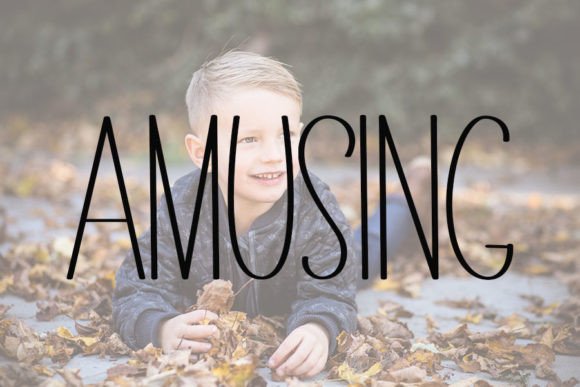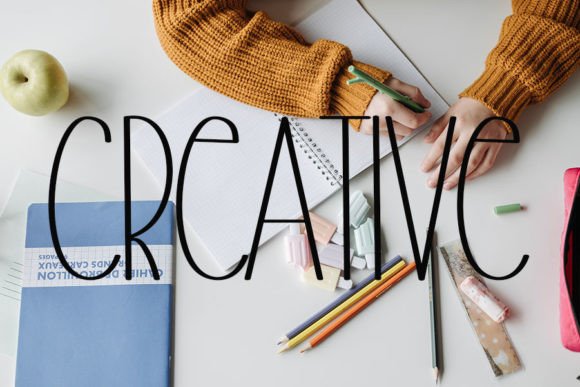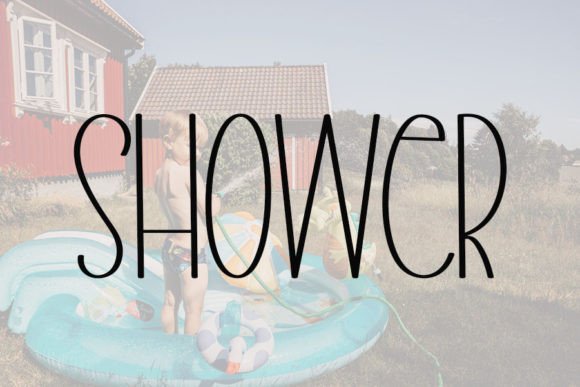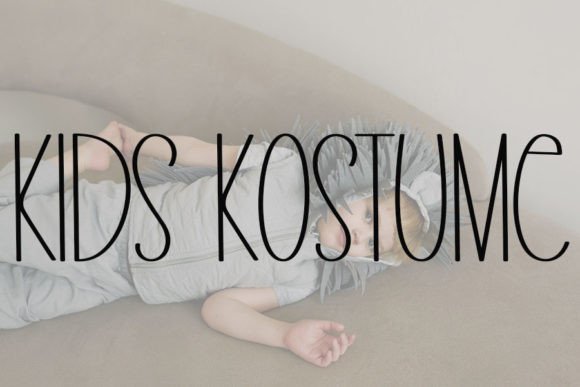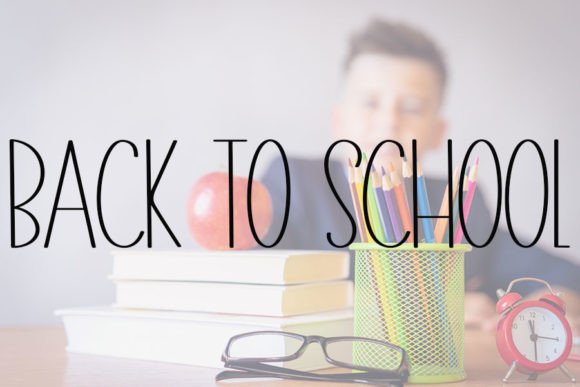
Introducing Children Font: The Perfect Elegant Touch for Your Designs
Are you looking for a font that adds a touch of elegance and sophistication to your designs? Look no further than Children Font, a beautiful handwritten font that is sure to capture your heart. With its incredibly distinct and timeless style, Children Font is perfect for designers and crafters who want to create spectacular designs that stand out from the crowd.
What is Children Font?
Children Font is a neat and beautiful handwritten font that is described by an elegant touch. Its unique and distinctive style makes it perfect for a wide range of projects, from wedding invitations and greeting cards to branding and advertising materials. Whether you’re a professional designer or a crafter looking for a special font to add to your creations, Children Font is an excellent choice.
Key Features of Children Font
So what makes Children Font so special? Here are just a few of its key features:
- Elegant and sophisticated: Children Font has an undeniable air of elegance and sophistication that makes it perfect for designs that require a touch of refinement.
- Unique and distinctive: With its incredibly distinct style, Children Font is sure to set your designs apart from the crowd.
- Handwritten: Children Font is a handwritten font, which gives it a personal and intimate feel that’s perfect for a wide range of projects.
- Timeless: Unlike some fonts that can look dated after a few years, Children Font has a timeless quality that ensures it will remain stylish and relevant for years to come.
How to Use Children Font
Children Font is incredibly versatile and can be used for a wide range of projects, including:
- Wedding invitations and stationery: Add a touch of elegance to your wedding invitations, save the dates, and other stationery with Children Font.
- Greeting cards: Create beautiful and heartfelt greeting cards for special occasions like birthdays, anniversaries, and holidays.
- Branding and advertising: Use Children Font to create eye-catching logos, advertisements, and marketing materials that stand out from the crowd.
- Crafting projects: Add a personal touch to your crafting projects, such as scrapbooking, journaling, and card making, with Children Font.
Tips for Getting the Most Out of Children Font
Here are a few tips for getting the most out of Children Font:
- Experiment with different sizes and colors: Children Font looks great in a variety of sizes and colors, so don’t be afraid to experiment and find the combination that works best for your project.
- Pair it with other fonts: Children Font pairs well with a range of other fonts, so try combining it with different fonts to create a unique and interesting look.
- Use it consistently: To create a cohesive look, use Children Font consistently throughout your project.
If you’re looking for a beautiful and elegant font to add to your designs, look no further than Children Font. With its incredibly distinct and timeless style, Children Font is perfect for designers and crafters who want to create spectacular designs that stand out from the crowd. Whether you’re working on a wedding invitation, a branding project, or a crafting project, Children Font is an excellent choice. So why not fall in love with Children Font today and see the difference it can make in your designs?